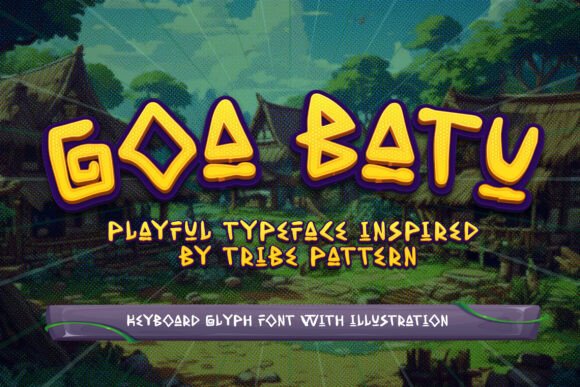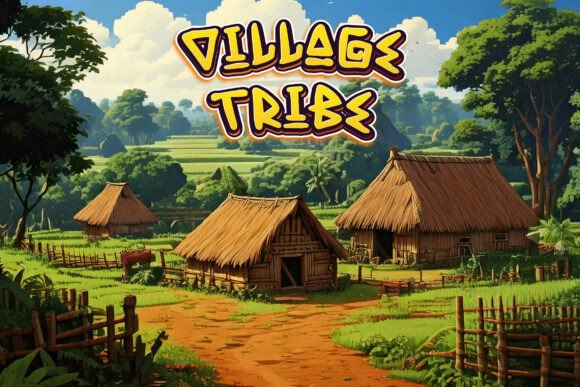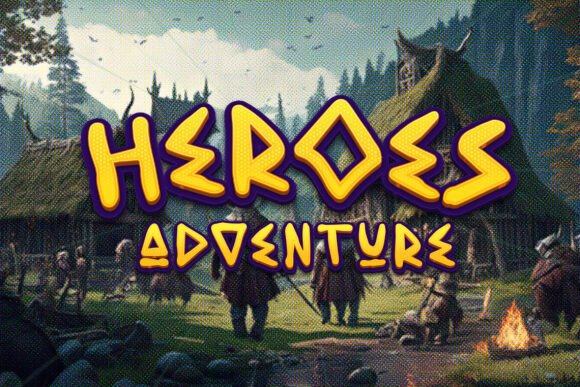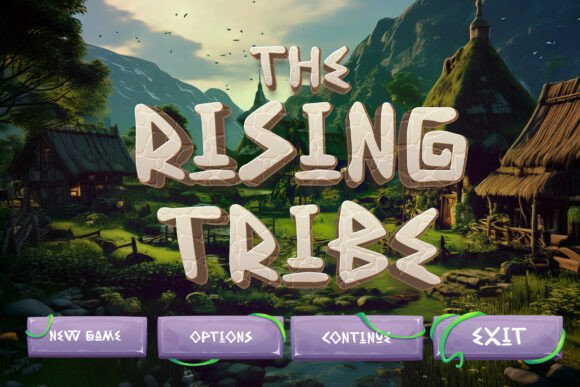
Goa Batu Font: A Bold Display Font for Primal & Adventurous Designs
About the Goa Batu Font
Explore the possibilities with Goa Batu Font, a font that offers both beauty and functionality. Introducing Goa Batu, a bold and adventurous display font inspired by ancient tribal patterns and rugged terrains. Designed with game aesthetics in mind, this font carries the spirit of exploration, myth, and primal strength. Its sharp angles, geometric forms, and handcrafted texture echo traditional tribal carvings, making it perfect for titles, logos, and UI elements that demand a sense of mystery and wild energy.
Whether you’re creating a fantasy adventure game, a survival quest, or an ancient civilization theme, Goa Batu brings character and story to every letter. It’s not just a typeface—it’s a gateway to a forgotten world.